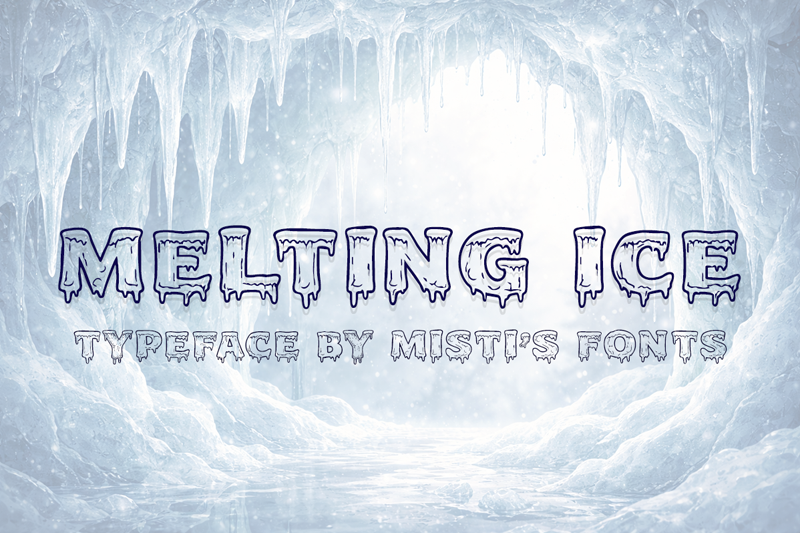
Melting Ice
Misti's Fonts · Regular · Melting Ice
Immerse yourself in the winter’s charm with this icy-themed typeface. Drawing rich inspiration from the beauty of melting icicles and fascinating patterns of thawing winter textures, we present you our Frozen Display font. Perfectly capturing the essence of winter’s erratic symphony, this font will instantly enhance your designs, giving them a cool, crisp, and refreshing appeal. Experience the frosty allure of our Frozen Display font – the epitome of winter’s artistry, skillfully crafted into a stunning typeface. Terms Of Use and Commercial Licensing: https://mistifonts.com/melting-ice/